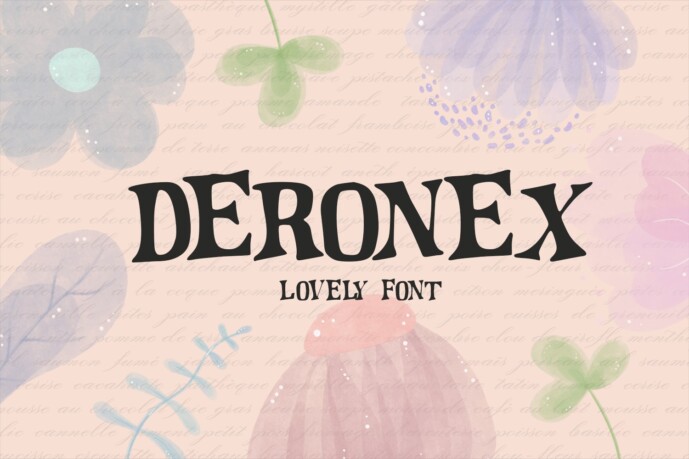
Deronex Font
Deronex is a unique decorative serif font that fuses precision with eccentricity. It features sharp, angular serifs, high-contrast strokes, and subtly abstract proportions that set it apart from traditional serif families. The result is a typeface that feels regal and futuristic at once—classic in structure, but experimental in execution.
Ideal for design projects that demand presence and personality, Deronex thrives in editorial layouts, brand marks, luxury packaging, and cinematic titles. It’s not a background player—it commands attention with elegance and edge.